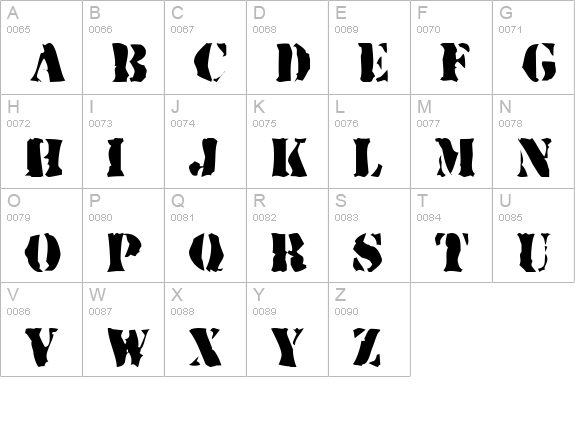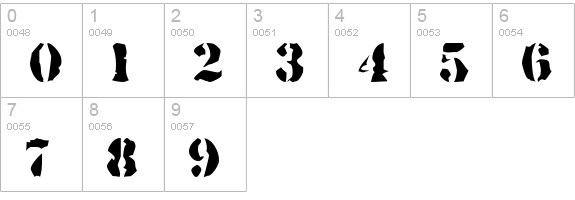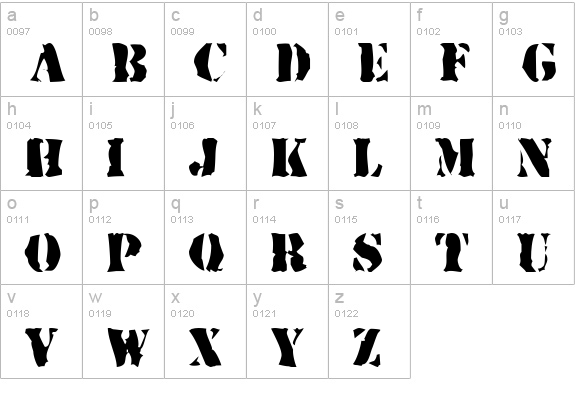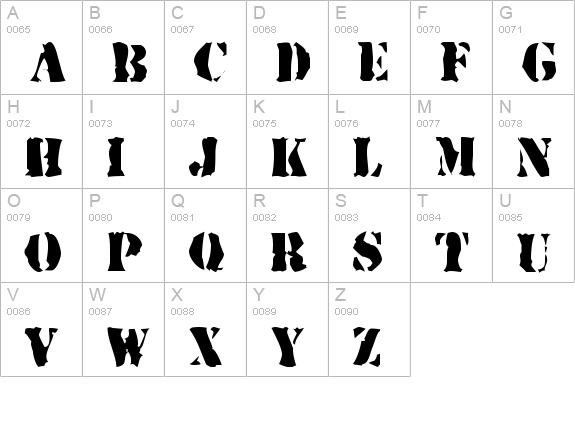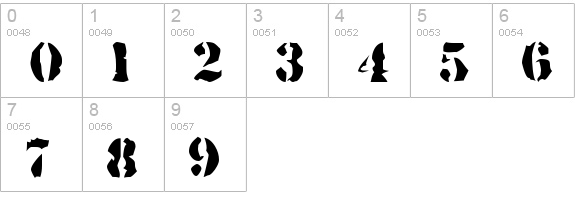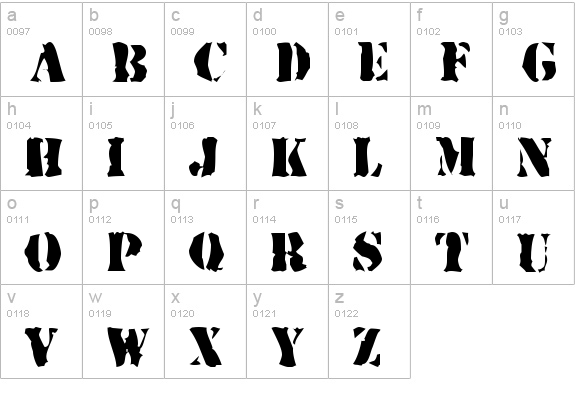
Rugged Stencil Font Details
Introducing Rugged Stencil, a stunning display font that exudes strength, durability, and a touch of rebelliousness. This bold typeface is perfect for projects that demand a tough and rugged aesthetic, making it ideal for military-inspired designs, outdoor-themed branding, or edgy urban graphics. Rugged Stencil stands out with its distinctively sharp edges and prominent stenciled cutouts, giving it a unique and eye-catching appearance. Its robust and sturdy letterforms evoke a sense of power and resilience, making this font an excellent choice for conveying a message of determination and unwavering spirit. With its versatile nature, Rugged Stencil seamlessly adapts to various design applications. Whether you're creating bold headlines, impactful posters, or attention-grabbing logos, this font commands attention and leaves a lasting impression. What's even better is that Rugged Stencil is available for free download at FontsMarket.com. It's never been easier to add a touch of ruggedness to your designs without breaking the bank. Simply visit FontsMarket.com, and start exploring the possibilities this font has to offer. Don't miss out on the opportunity to enhance your designs with this powerful and captivating typeface. Download Rugged Stencil today and unleash your creativity like never before.